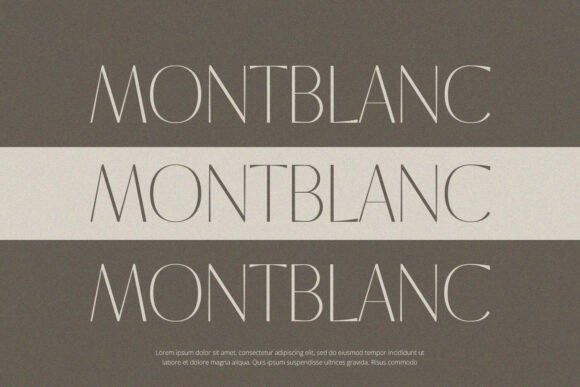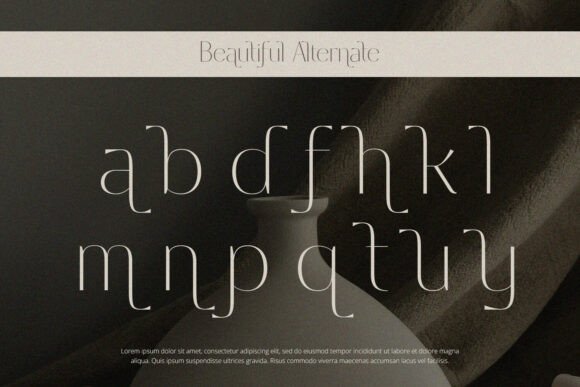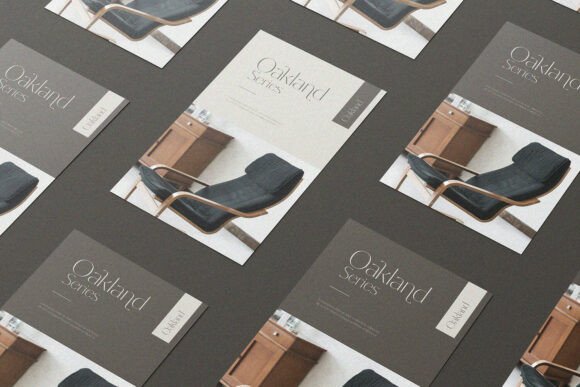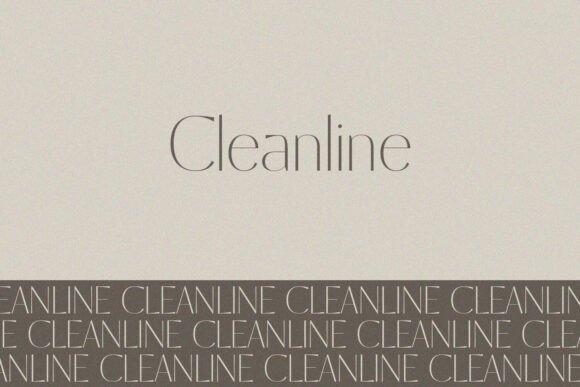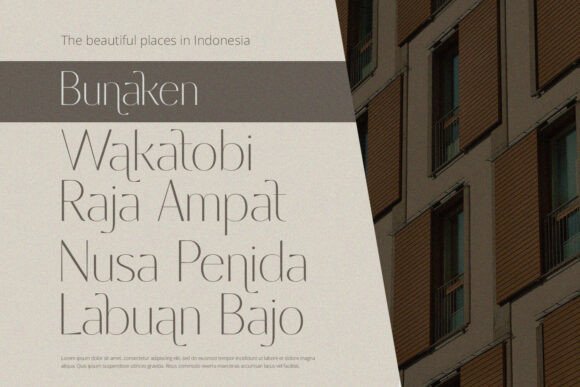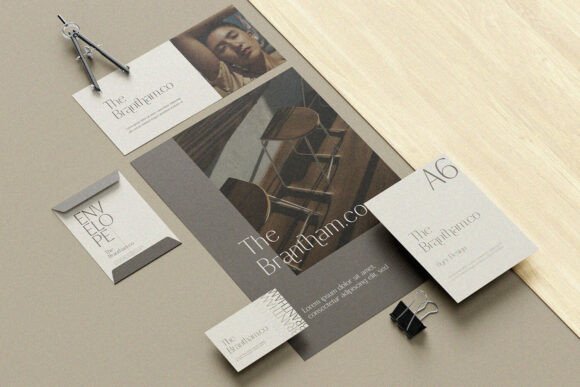
Ah, the eternal quest for the perfect font! I recall working on a project, pouring my heart and soul into the design, when suddenly, I hit a roadblock – finding the right font. My client wanted something modern, yet elegant; something that would make their brand stand out. After hours of scouring the internet, I stumbled upon Castelloria, a serif font with a modern twist. It was love at first sight! 💕
Castelloria: A Modern Serif Font
Castelloria is a beautifully crafted serif font, designed to bring a touch of sophistication to any design project. Its modern feels make it perfect for branding, logo design, lettering, and logotype. But that’s not all – it’s also great for clothing, posters, magazines, packaging, and more! 📦
Features
Here are some of the amazing features of Castelloria:
- Uppercase & Lowercase letters
- Numerals
- Punctuations (OpenType Standard)
- Accents (Multilingual Characters)
- Ligatures and Alternative Style Stylistic Set
Honest Review
Here’s what I’m obsessed with about Castelloria: 🤩
- ✨ Elegant and modern design
- ✅ Highly versatile – works for various design projects
- 💡 Ligatures and alternative styles add a creative touch
- 🌎 Multilingual support – perfect for global brands
While Castelloria is an amazing font, there are a few things to keep in mind: 🤔
- ⚠️ Limited availability of certain special characters
- ⚠️ May require some adjustments for optimal kerning
The Story Behind Castelloria
Castelloria was designed with the intention of creating a modern serif font that would cater to the needs of designers and brands. Inspired by traditional serif fonts, Castelloria’s creator aimed to bring a fresh perspective to the world of typography. 💡
| Author | alpapranastudio |